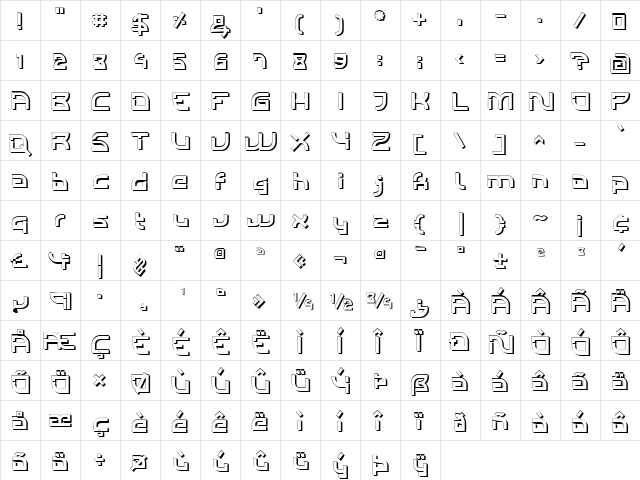
Individigital Shaded DemiBold
| Foundry | Myhandwritings Font. Not for release. |
| Designer | RolandHuse |
Design Context for Individigital Shaded Typeface
Individigital Shaded has a distinctly futuristic character, with geometric precision and clean angles that feel at home in technology, gaming, and sci-fi contexts. Its bold stroke weight gives it real presence on the page.
Pro Tip: Use Individigital Shaded in combination with a neutral sans for body text. Let it define the brand voice in headlines while keeping reading comfortable elsewhere.